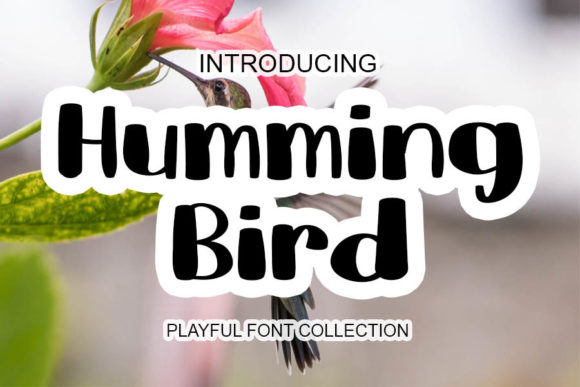
Embrace the whimsical charm of Humming Bird, a script font that dances across your designs with a captivating handwritten flair. Its playful personality and natural flow bring a touch of whimsy and uniqueness to any project, making it the perfect choice for those seeking an expressive and creative font.
Step into a world of limitless possibilities with Humming Bird, where your imagination roams free. Whether you're crafting heartfelt invitations, designing eye-catching branding, or adding a personal touch to your social media posts, this font is your versatile companion. Its effortless elegance and charm elevate your designs, leaving a lasting impression on your audience.
With Humming Bird as your creative partner, you'll find endless opportunities to express yourself in captivating ways. Its playful nature sparks joy and creativity, while its graceful strokes lend a touch of sophistication to your work. Transform ordinary designs into extraordinary masterpieces with this font that speaks to the heart.
Explore the captivating world of Humming Bird today and unlock the full potential of your designs. Let its playful spirit guide you as you create projects that resonate with your audience and leave a lasting impression. Welcome Humming Bird into your creative arsenal and watch your designs soar to new heights!